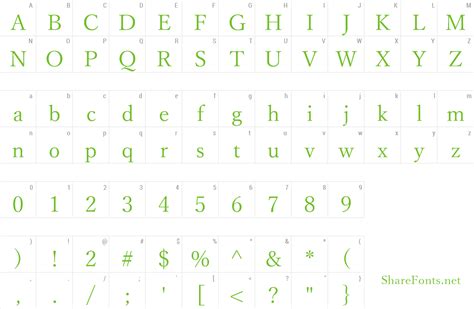
Yu Mincho Font. A mincho typeface with 1. Web explore yu mincho pr6n r designed by chikao ito, hisashi iwai, osamu torinoumi at adobe fonts.
A mincho typeface with 1. Web explore yu mincho pr6n r designed by chikao ito, hisashi iwai, osamu torinoumi at adobe fonts.
Web explore yu mincho pr6n r designed by chikao ito, hisashi iwai, osamu torinoumi at adobe fonts. Web explore yu mincho pr6n r designed by chikao ito, hisashi iwai, osamu torinoumi at adobe fonts. A mincho typeface with 1.